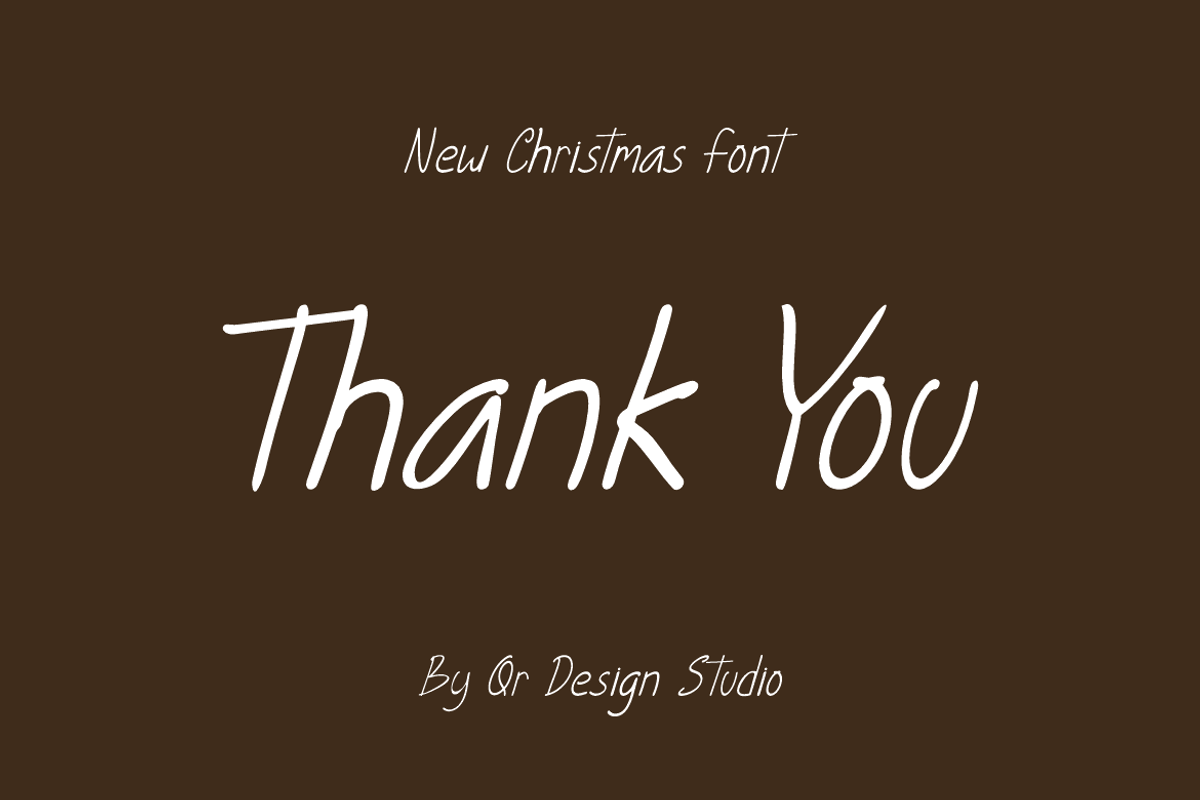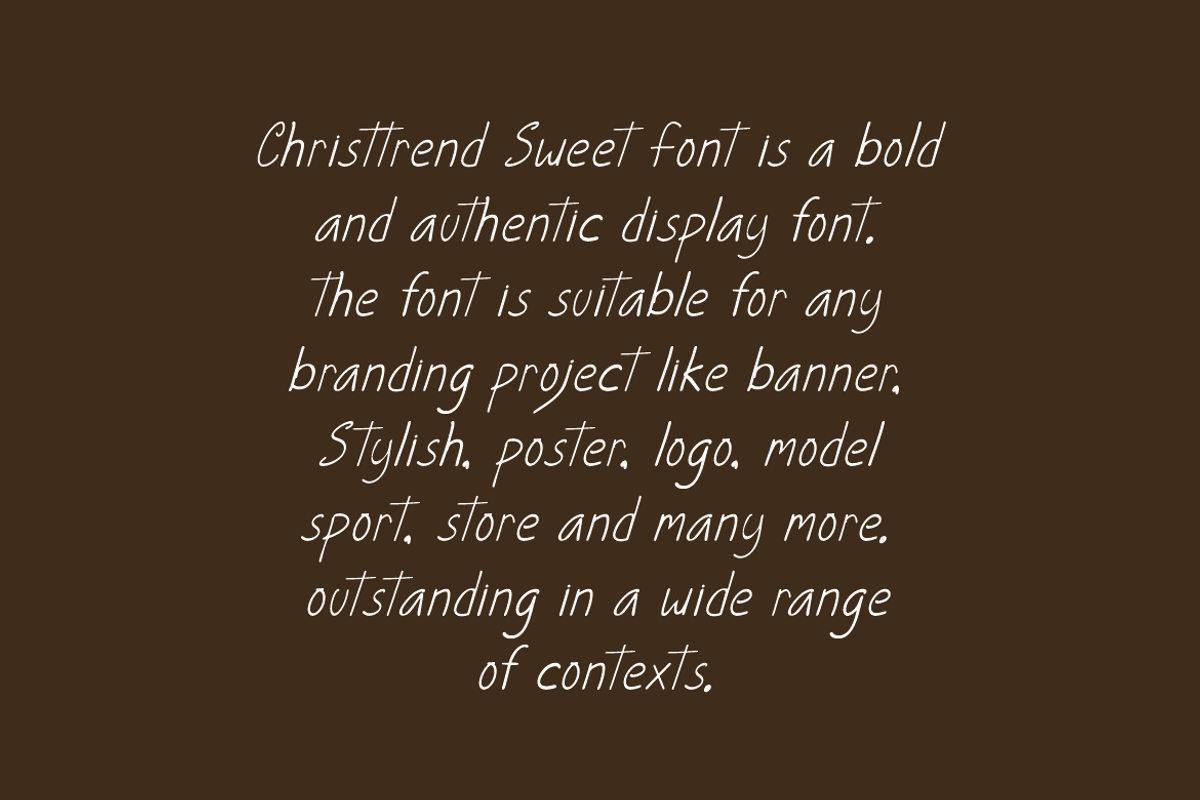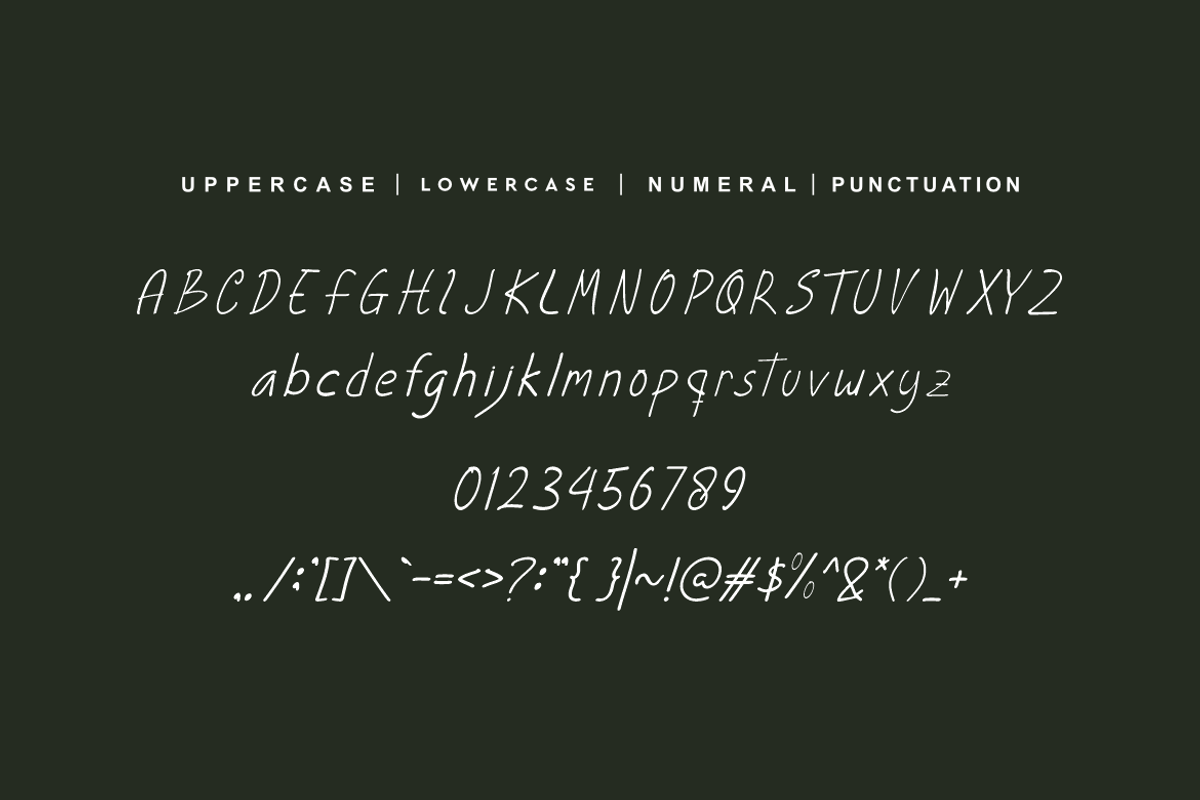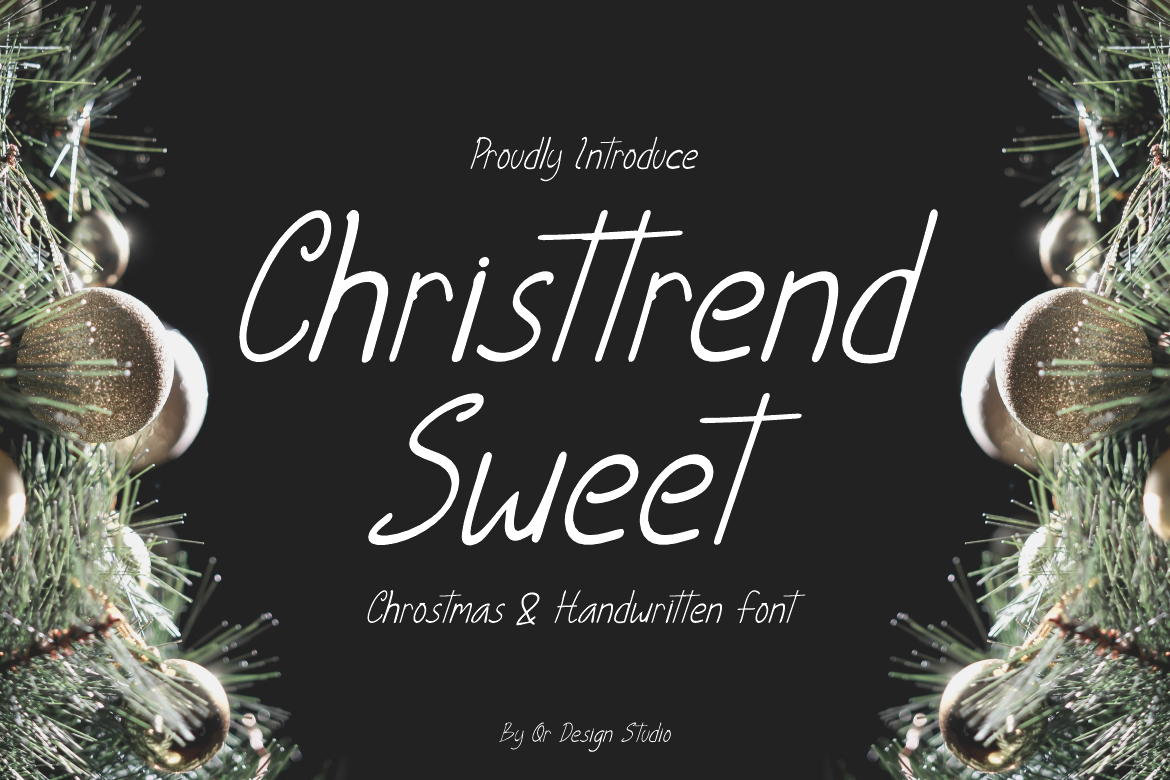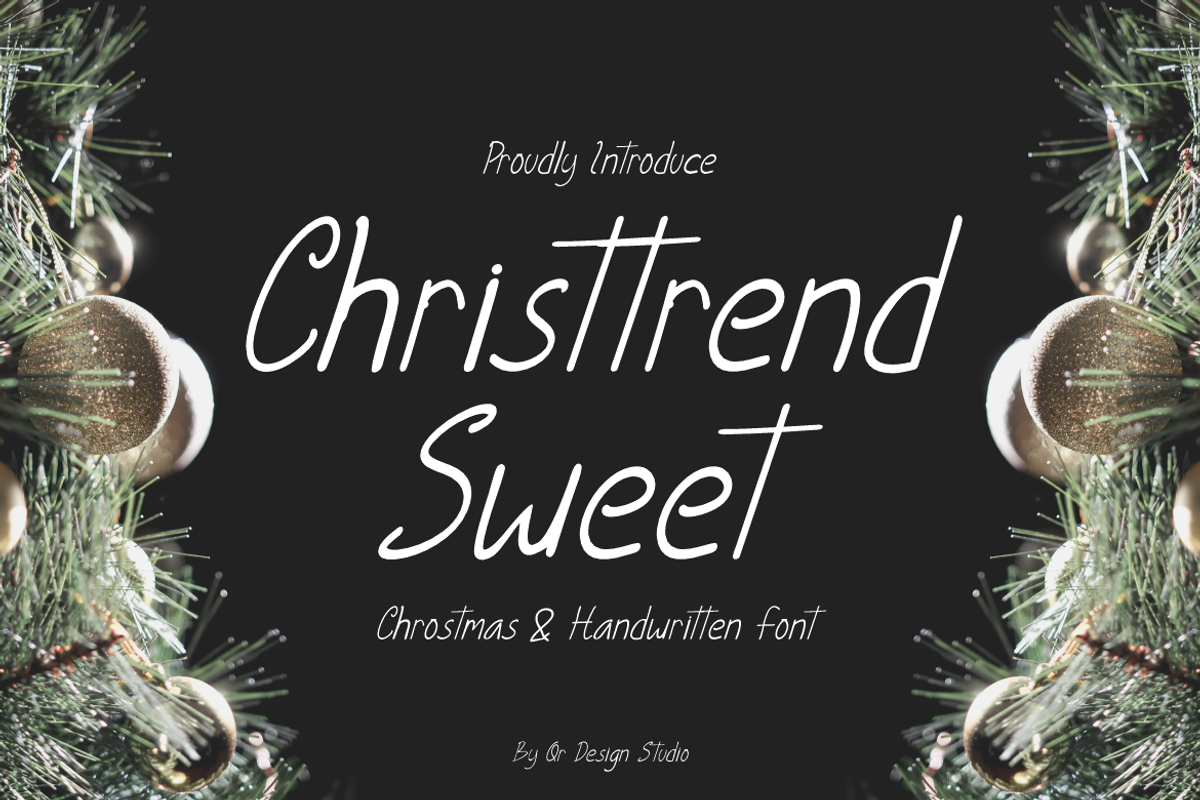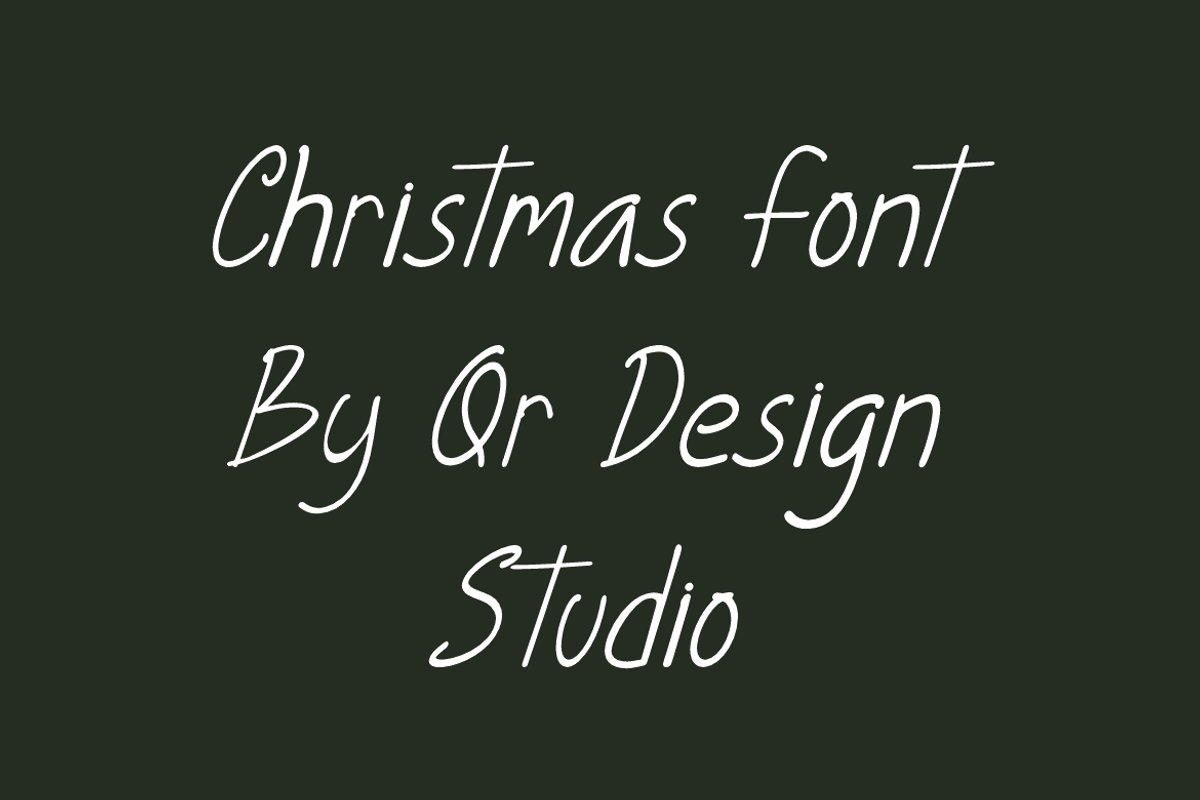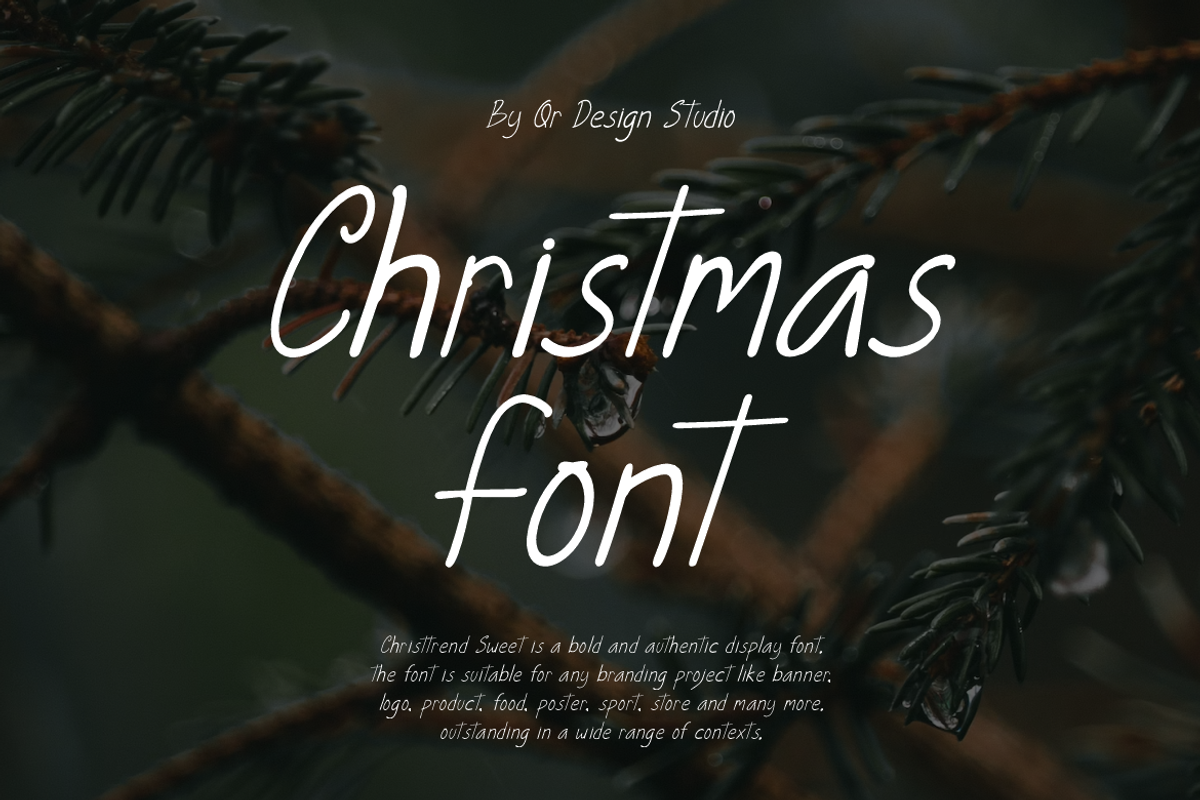
Christtrend Sweet Font
Christtrend Sweet Font is a bold and authentic display font. The font is suitable for any branding project like poster, kids, playful, logo, sport, and many more. Outstanding in a wide range of contexts.